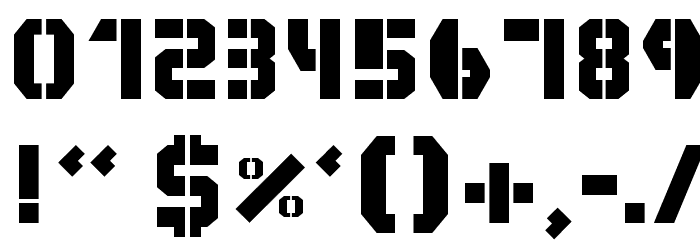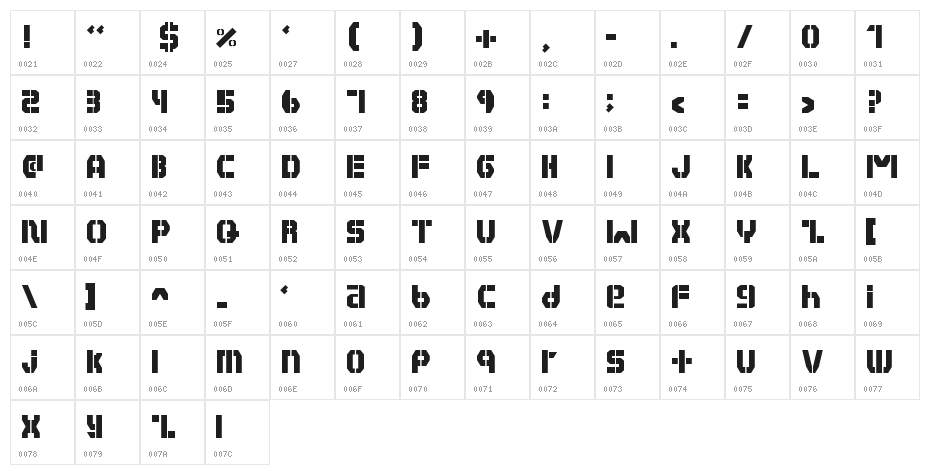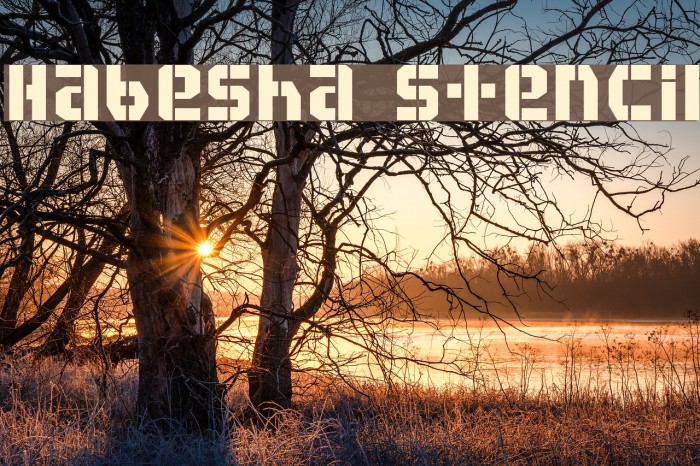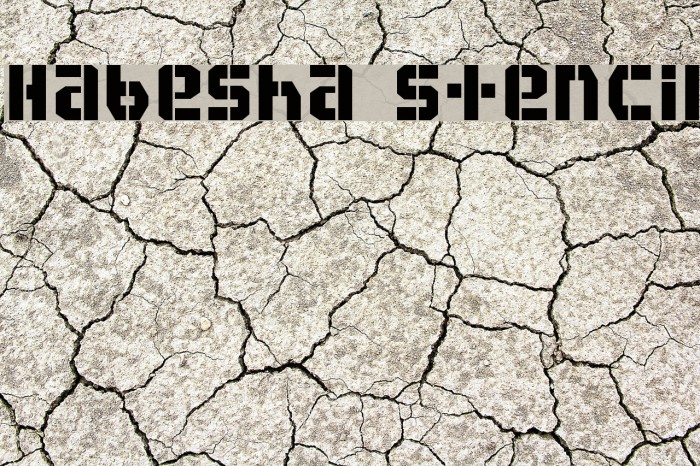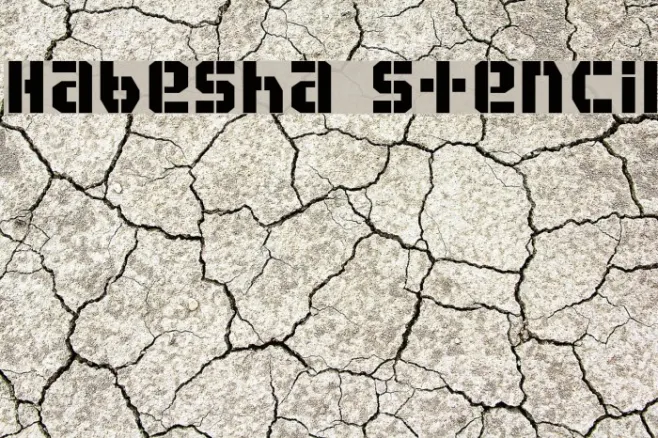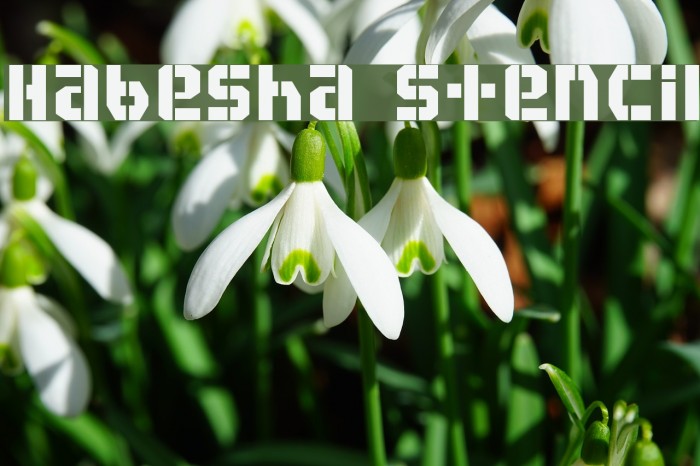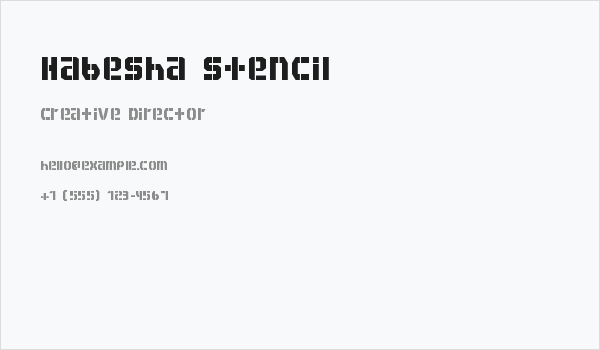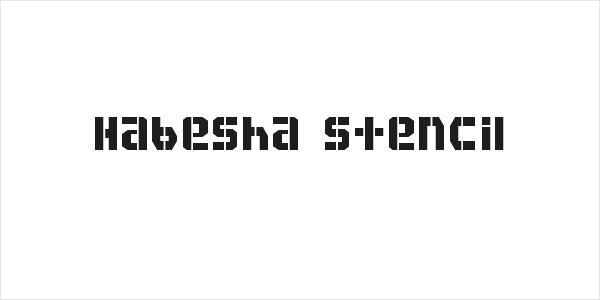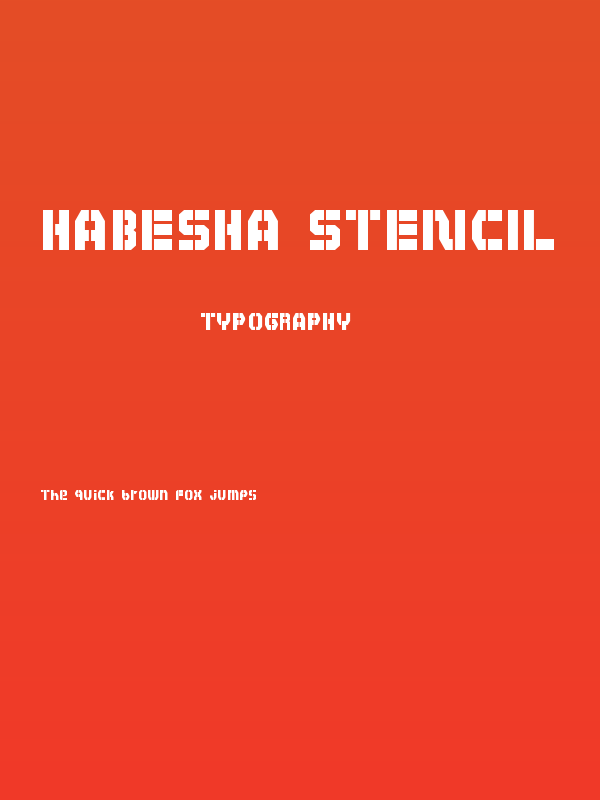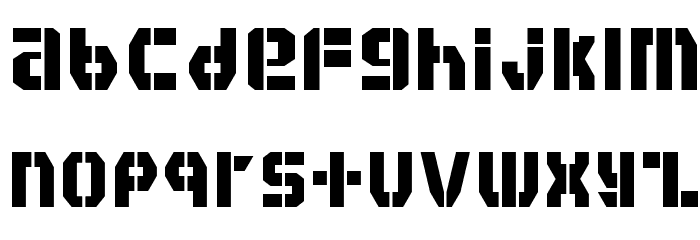
Habesha stencil Font
Habesha stencil Description
This font features a bold, stencil-like design with geometric shapes and sharp angles. Each character is constructed with solid, blocky forms, creating a strong and impactful visual presence. The uppercase and lowercase letters maintain a consistent style, with the lowercase slightly more compact. Numbers and special characters follow the same bold, angular design, ensuring uniformity across all elements. The font's stencil nature gives it a rugged, industrial feel, making it suitable for projects that require a strong, assertive typeface.
| Overall Style | Industrial, Modern |
| Proposed Projects | Ideal for branding, posters, signage, and any design requiring a bold, impactful typeface. |